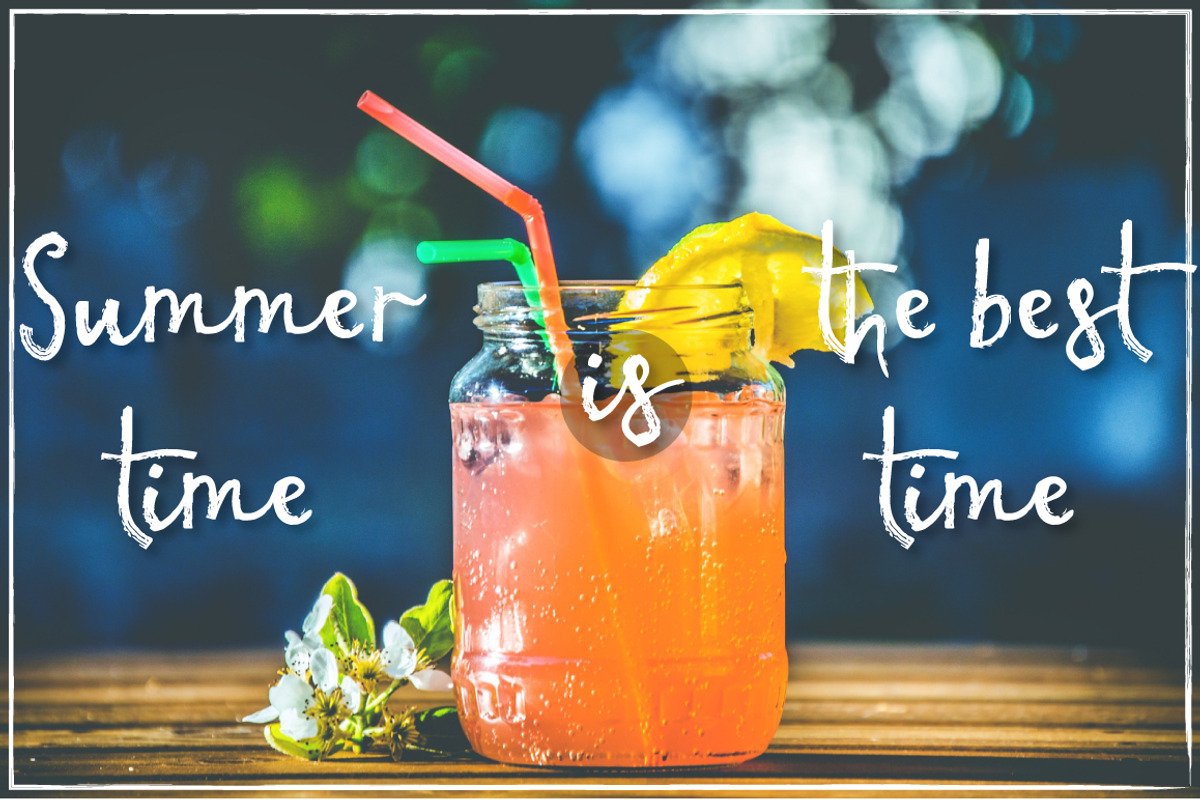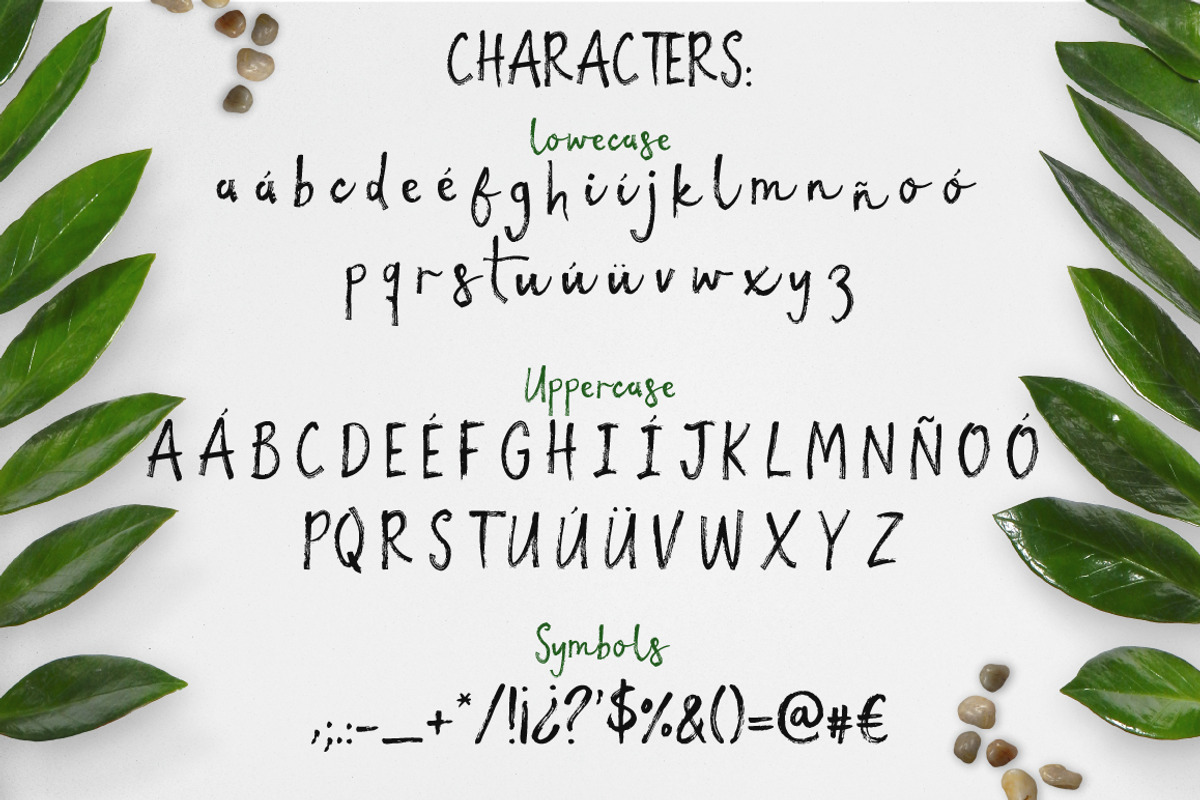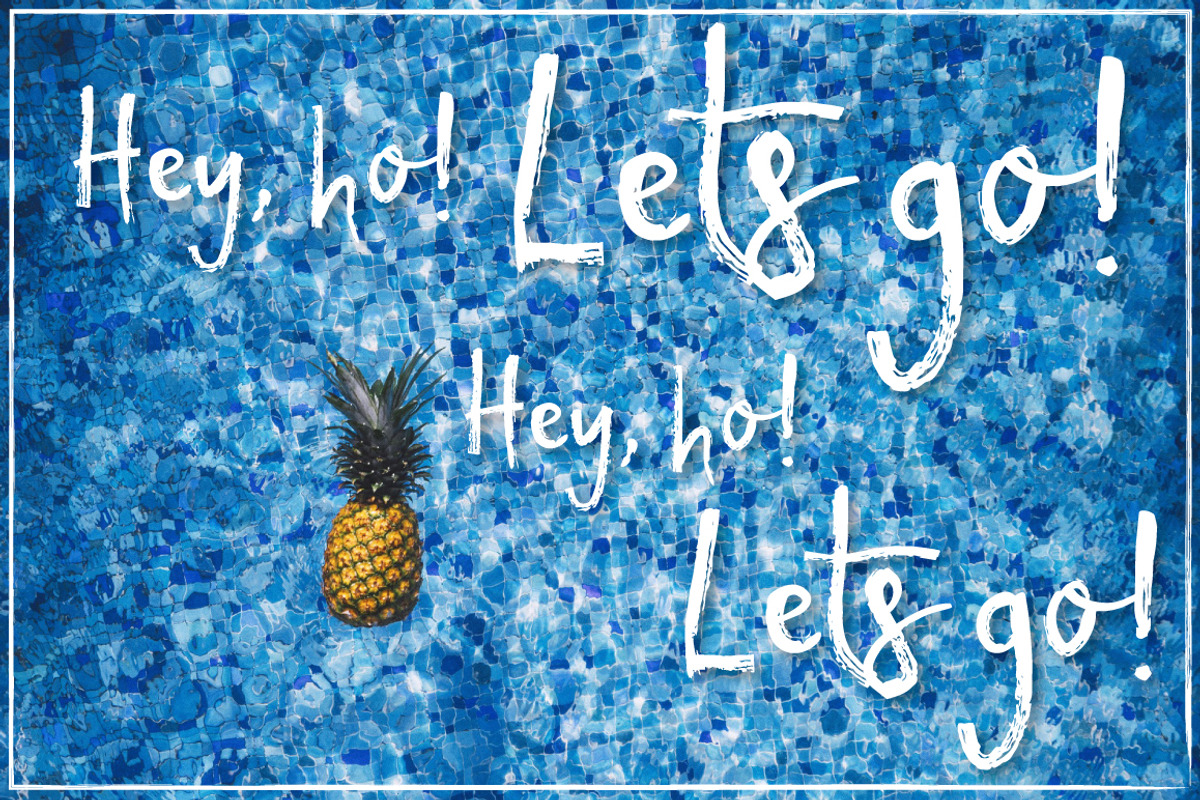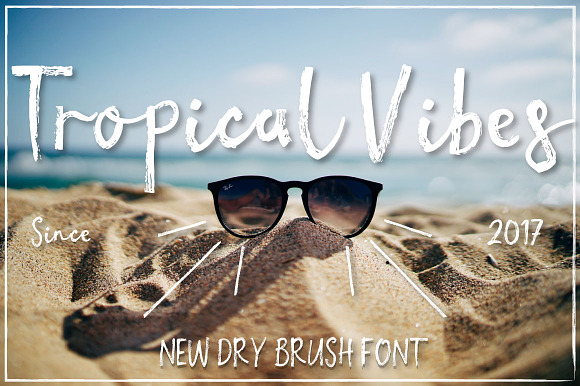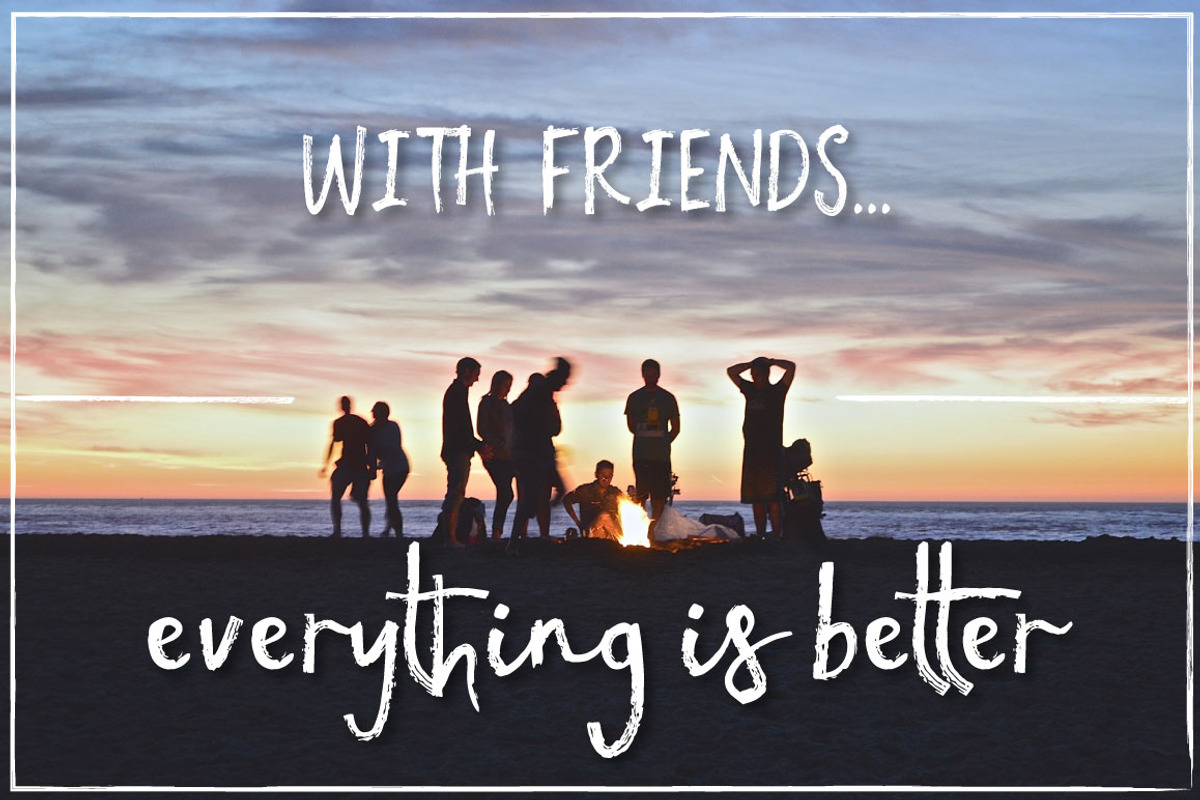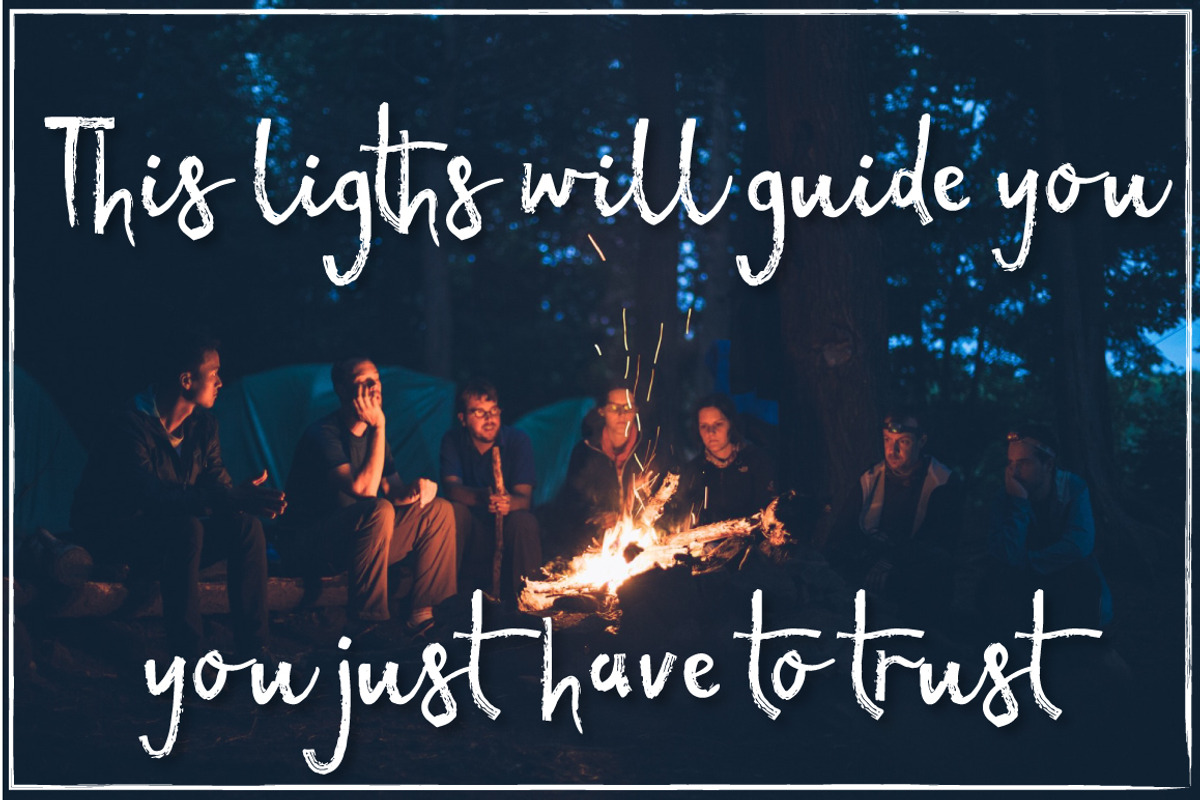
Tropical vibes - Dry brush font
TROPICAL VIBES - DRY BRUSH FONT
This time I present to you the Tropical vibes font, is a unique, handmade, feminine and totally awesome font that can help you create amazing invitations, give your brand an original style, elaborate the most amazing logos and everything you have in mind.
Cursive, textured and 100% handmade
It got hispanic characters, ¡Qué viva el poder de la ñ!